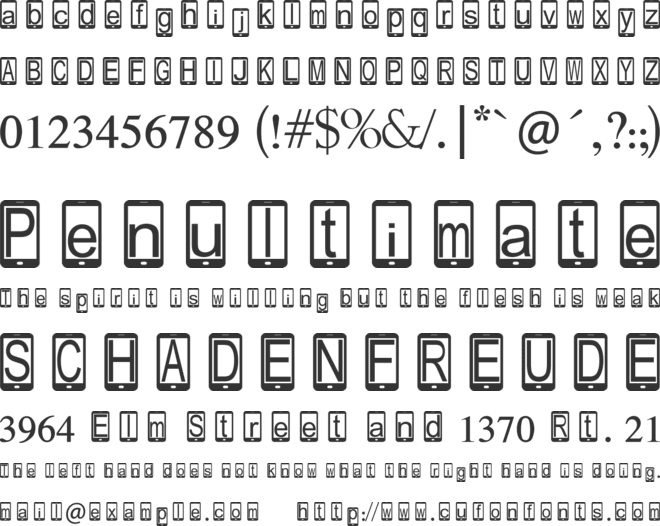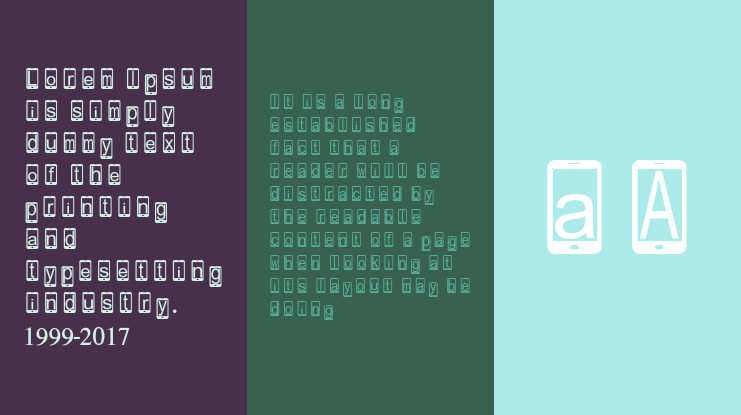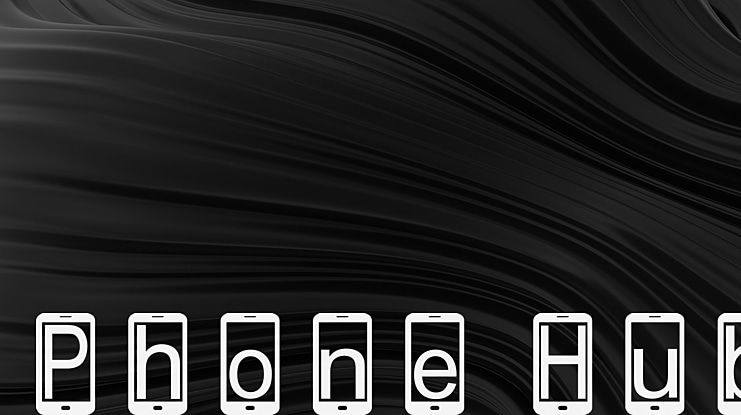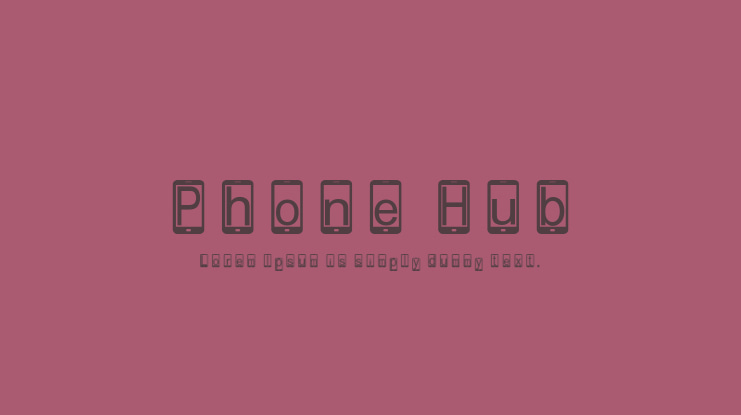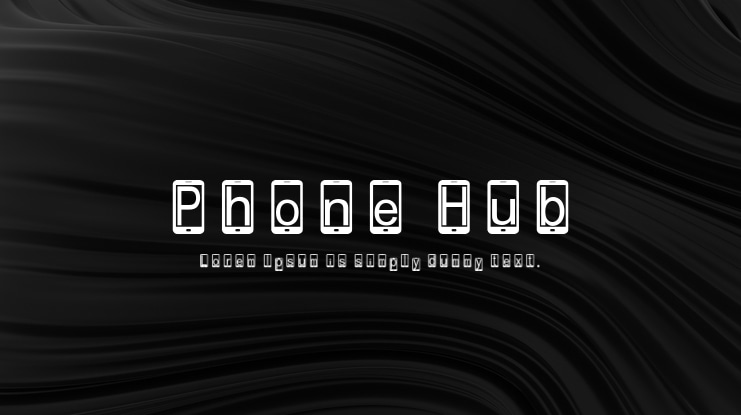
Phone Hub Font
Phone Hub Font is an OpenType font that designed by phonehub.lk. It is a free font that features smartphone symbol in each alphabetic character. It designed as a glyph type – an ornamental groove and frieze aka symbolic figure & character. Its file type / extension is TTF, but it designed system is OTF.